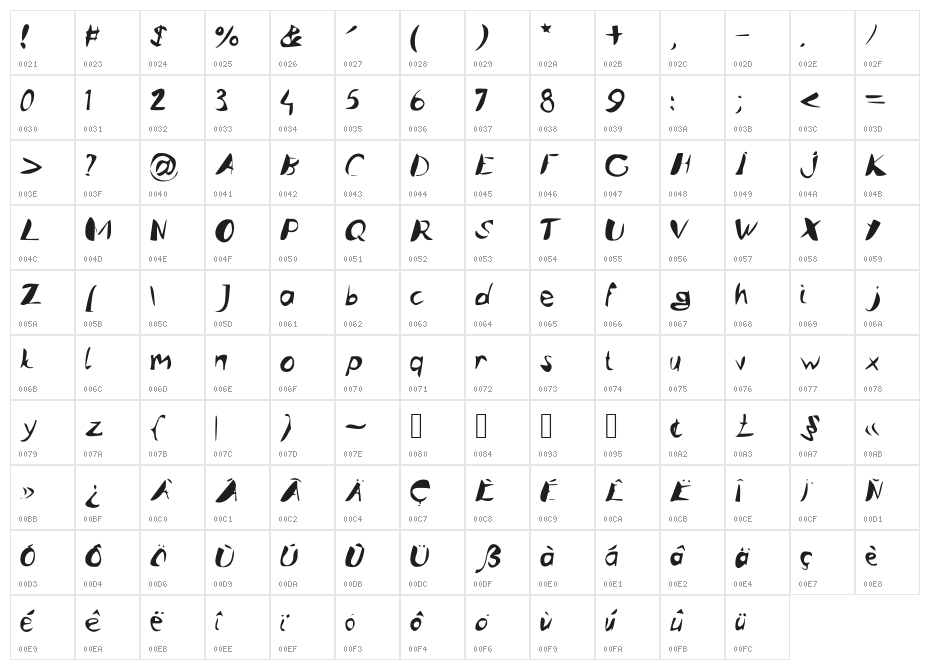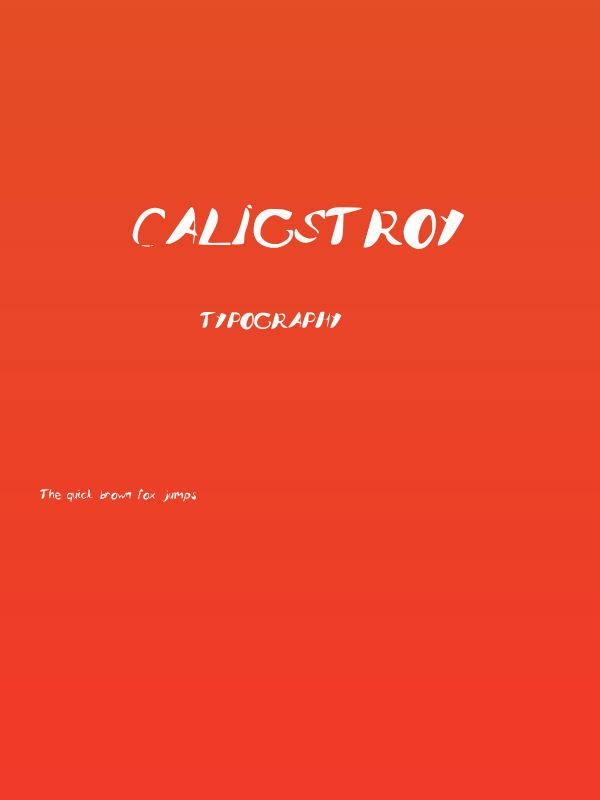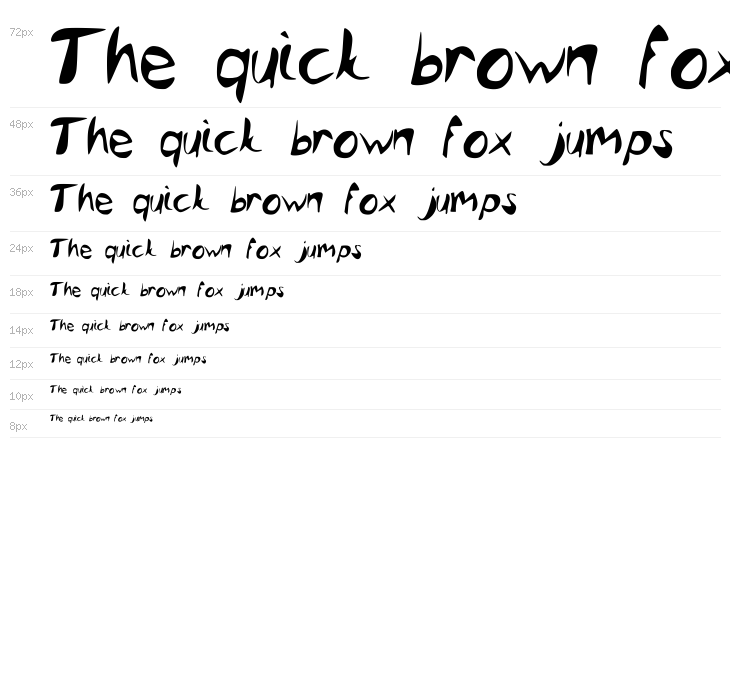
Caligstroy Font
Caligstroy Description
This font features a dynamic and expressive style, characterized by its bold and fluid strokes that mimic the look of hand-drawn calligraphy. The uppercase letters are particularly striking, with dramatic curves and varying line thickness that create a sense of movement and energy. The lowercase letters maintain this fluidity, offering a cohesive and artistic appearance. Numbers and special characters are crafted with the same attention to detail, ensuring consistency across all elements. The overall design is both modern and artistic, making it suitable for projects that require a touch of creativity and flair.
| Overall Style | Modern, Artistic |
| Use Case | Logos, Posters, Invitations |
| Proposed Projects | Ideal for artistic posters, creative branding, and expressive invitations. |